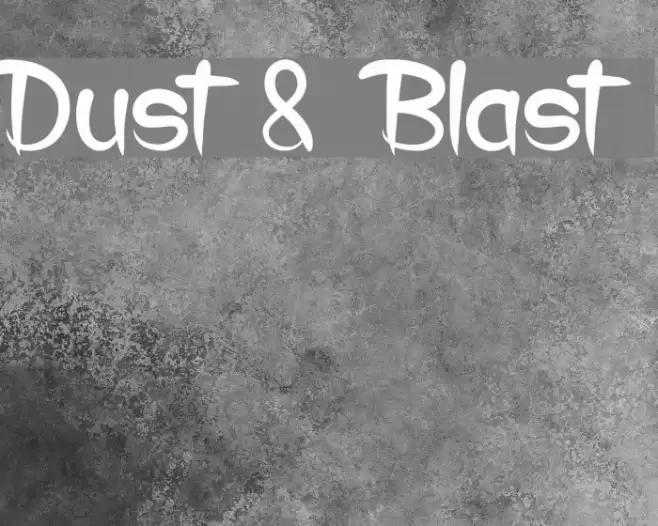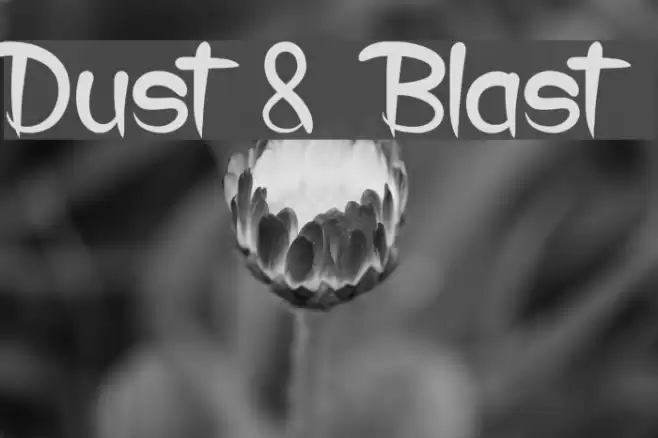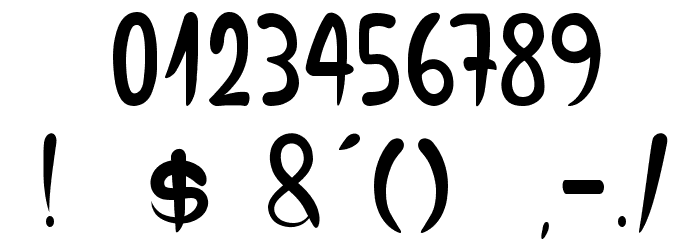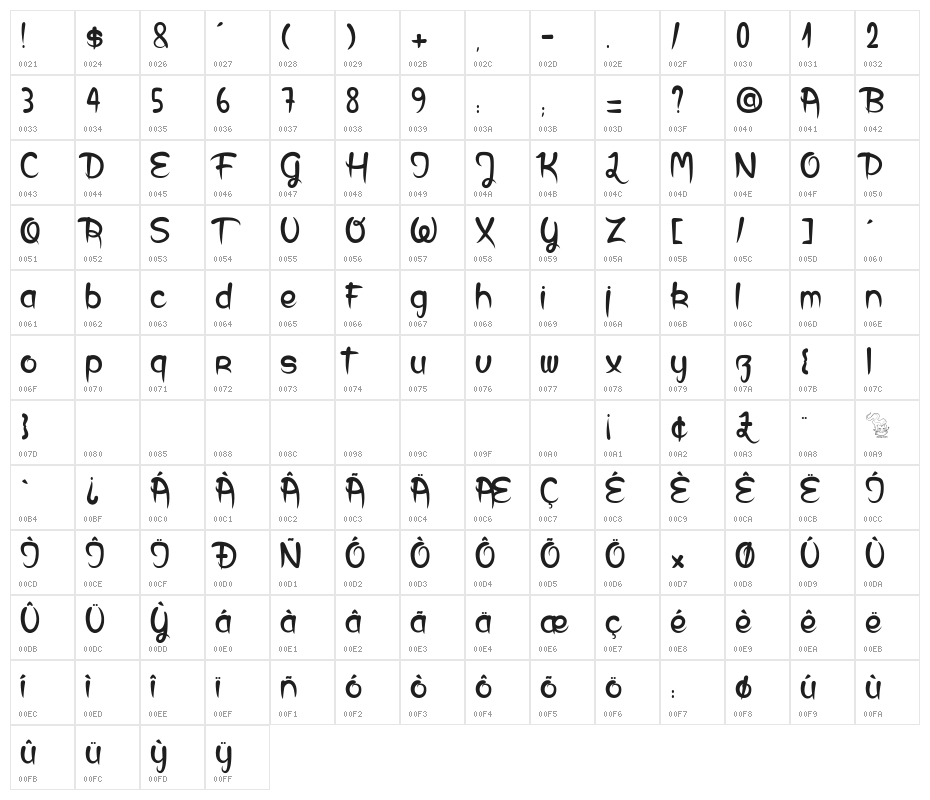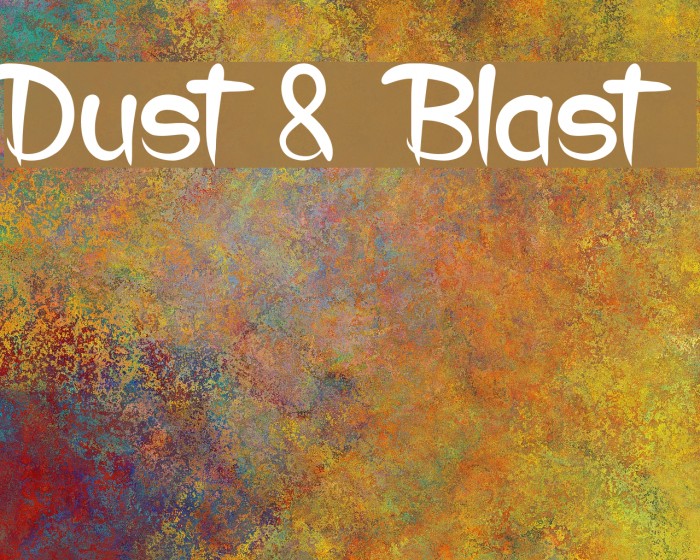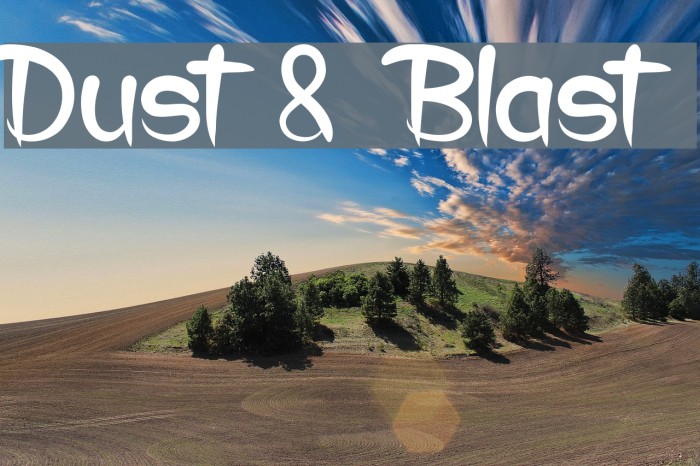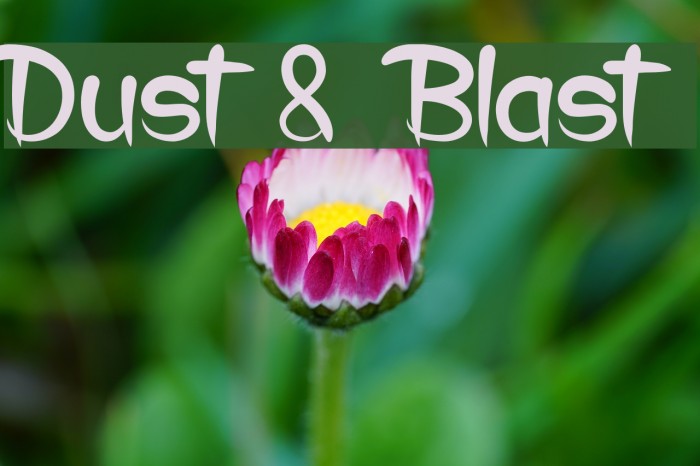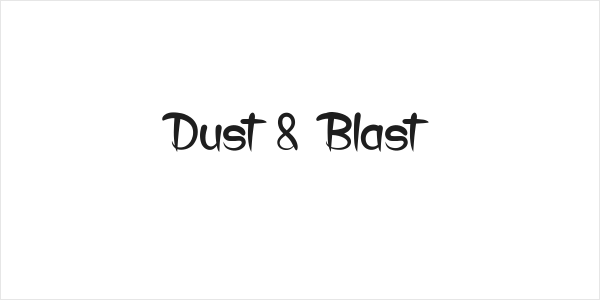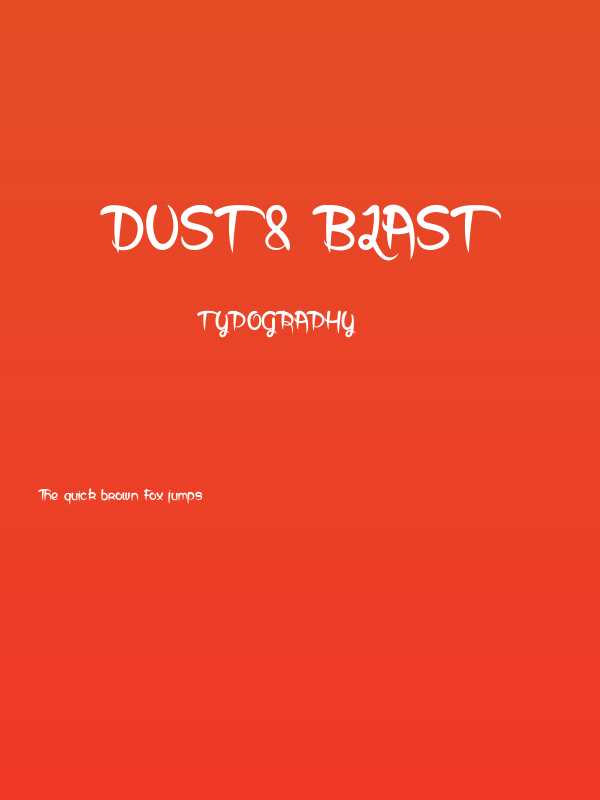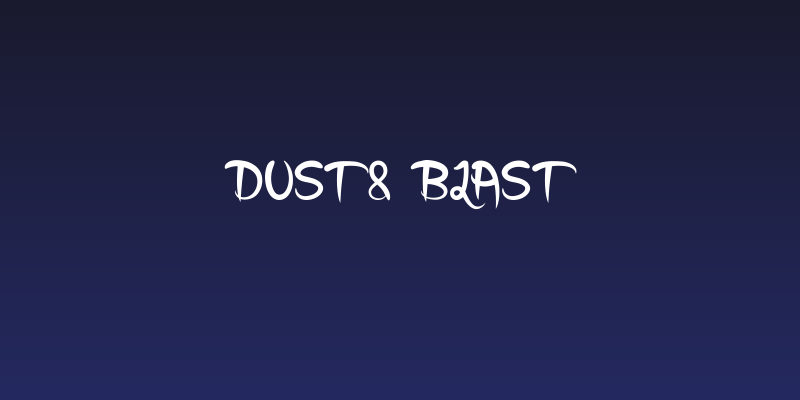
Dust & Blast Font
Dust & Blast Description
This font features a dynamic and edgy style, characterized by sharp, pointed serifs and a slightly irregular baseline, giving it a sense of movement and energy. The letters have a playful yet aggressive appearance, with exaggerated curves and strokes that create a bold visual impact. The uppercase and lowercase letters maintain a consistent style, while the numerals and special characters complement the overall aesthetic. This font's unique design makes it stand out, making it suitable for projects that require a touch of creativity and boldness.
A dynamic, edgy font with sharp serifs and exaggerated curves from Uncategorized fonts.
- Proposed Projects: Ideal for posters, album covers, video game graphics, and branding that requires a bold, creative touch.
- Overall Style: Modern, Decorative